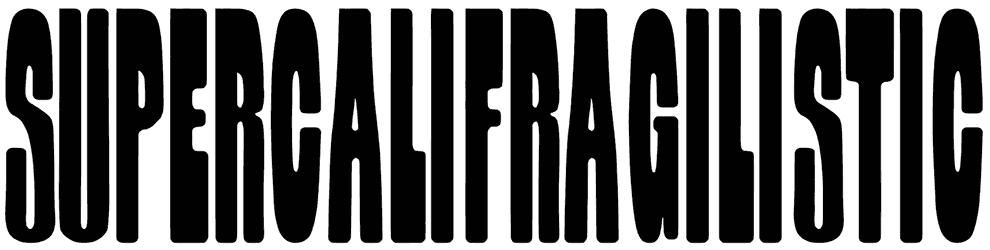
Supercalifragilistic Font
Using the condensed Supercalifragilistic font will give your digital work an antique feel and is a great way to create an artistic impression. This fancy font’s narrow width and taller characters make it best for fashion, branding, posters, and old-school flyers.
Try this movie font if you want a challenge because the end result will blow your client’s mind, despite the fact that it has no lowercase characters and is a little bit unreadable.
Supercalifragilistic